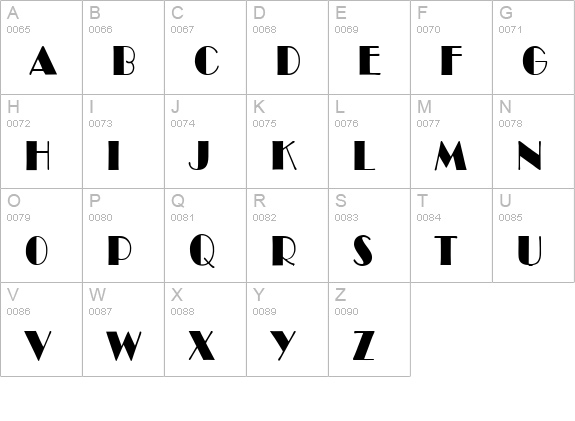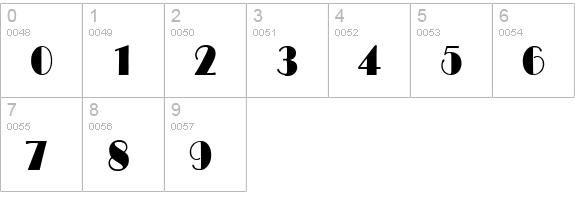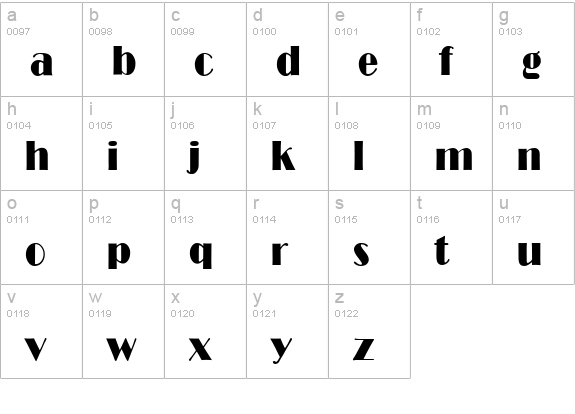
B821-Deco-Regular Font Details
B821-Deco-Regular is the standard, neutral variant in the B821 typeface family \xE2\x80\x94 well suited to general body text, paragraphs, and standard typographic work.
B821-Deco-Regular font is a stylish and eye-catching typeface that exudes a sense of elegance and sophistication. Its art deco-inspired design features geometric shapes and intricate details that make it perfect for projects that require a touch of vintage flair. The clean lines and balanced proportions of B821-Deco-Regular font make it versatile and suitable for a wide range of design applications. Not only does B821-Deco-Regular font bring a unique and timeless charm to your projects, but it is also available for free download at FontsMarket.com. This means that you can easily access this beautiful font and use it in your designs without any cost. Whether you are working on a branding project, a poster design, or a website layout, B821-Deco-Regular font is sure to add a touch of sophistication and style to your work. Download it today and elevate your design projects with this elegant and versatile typeface.